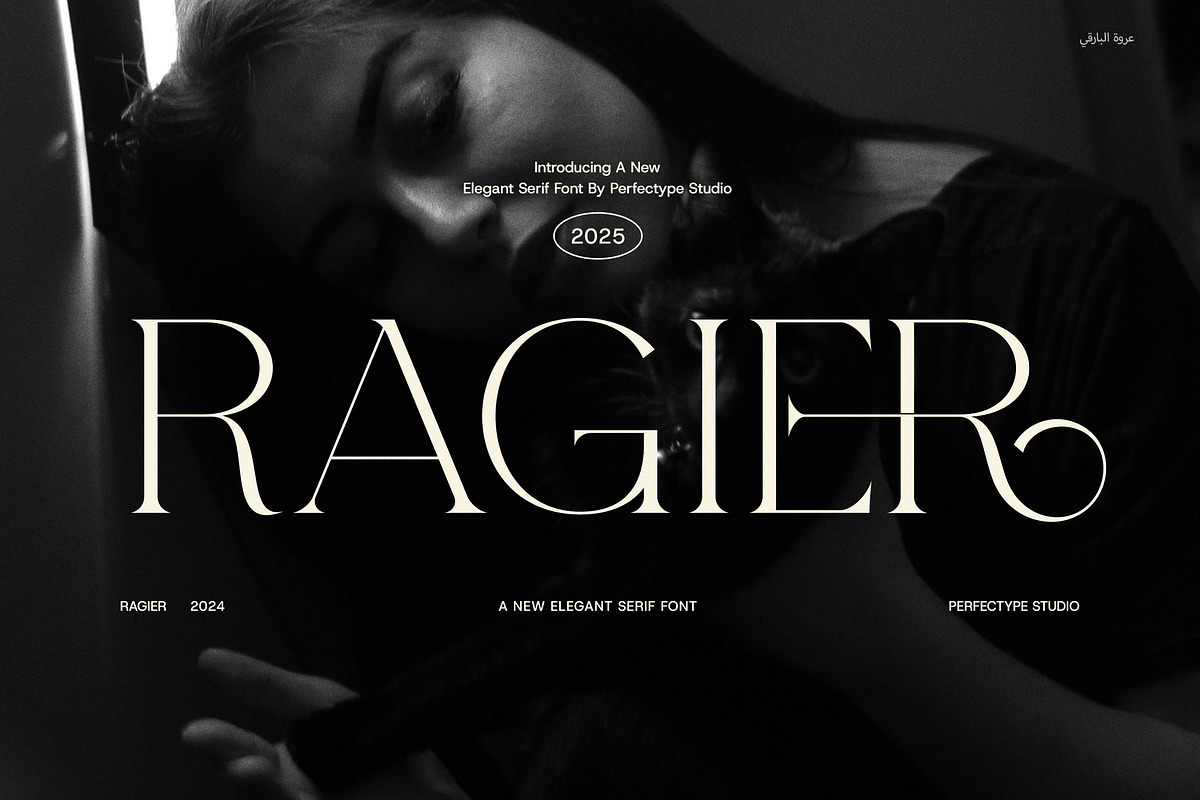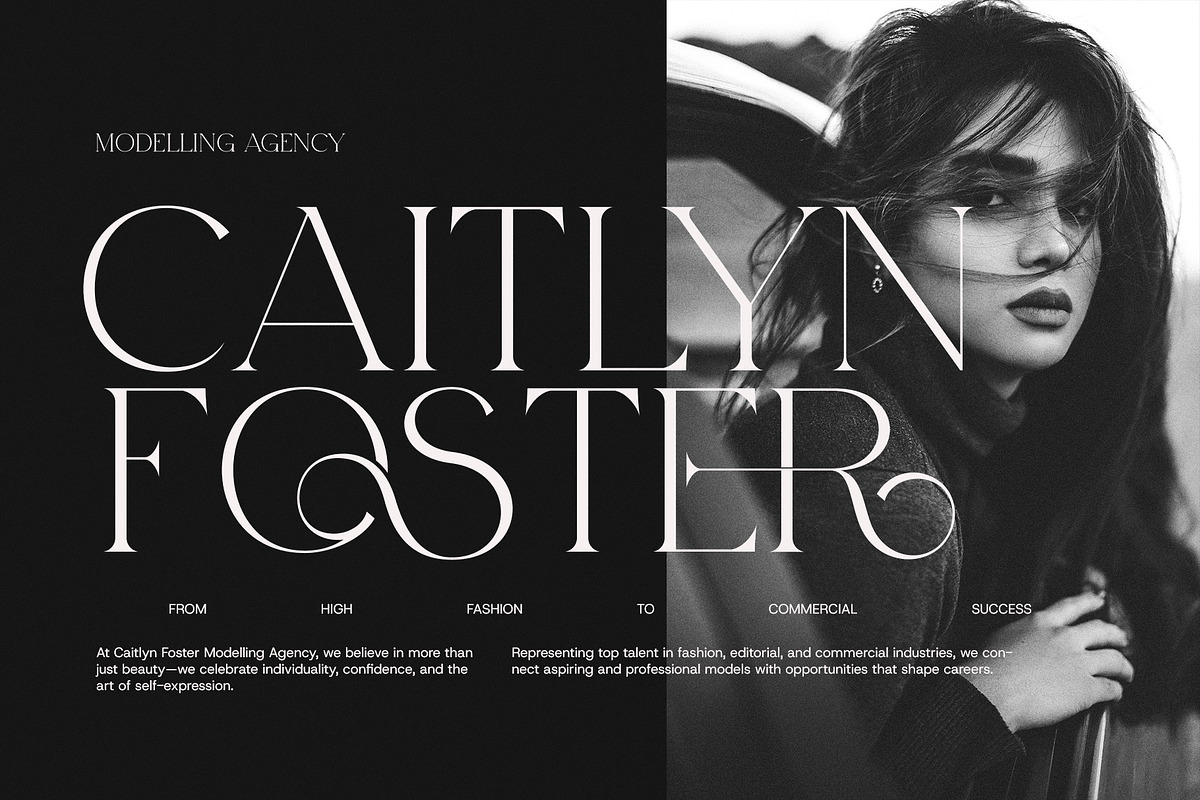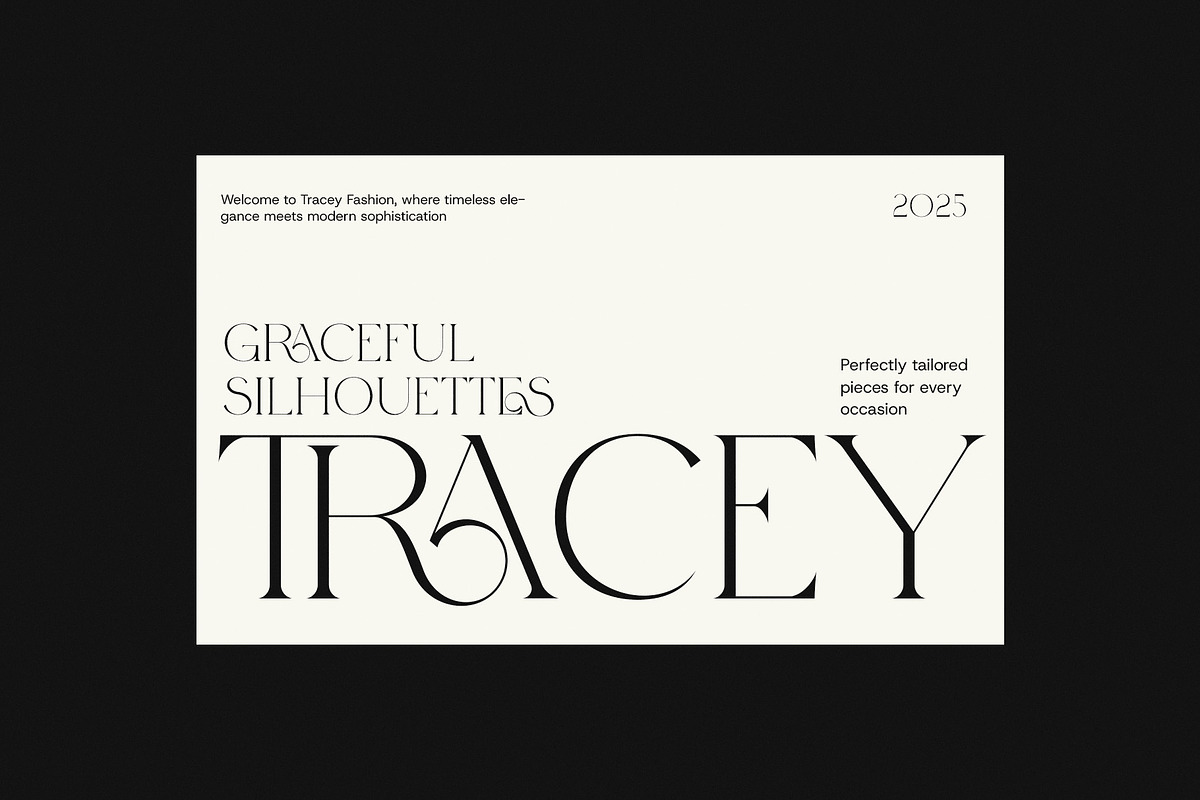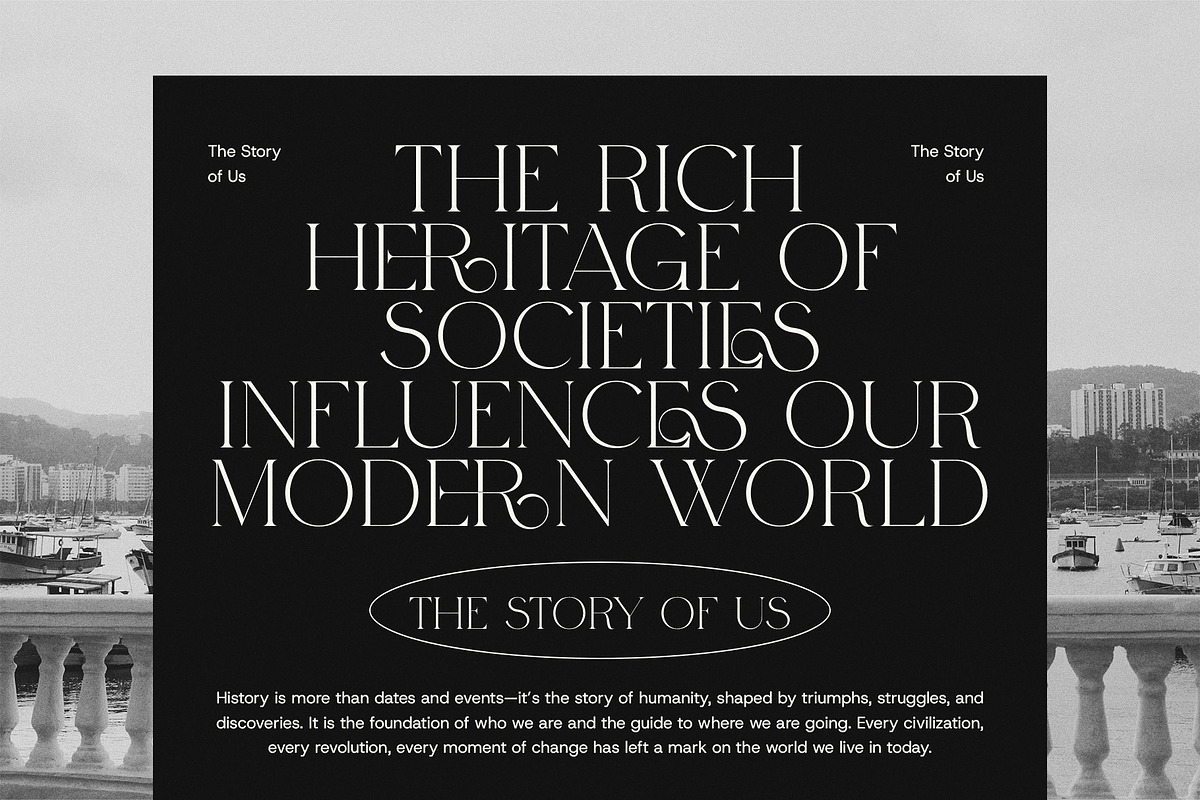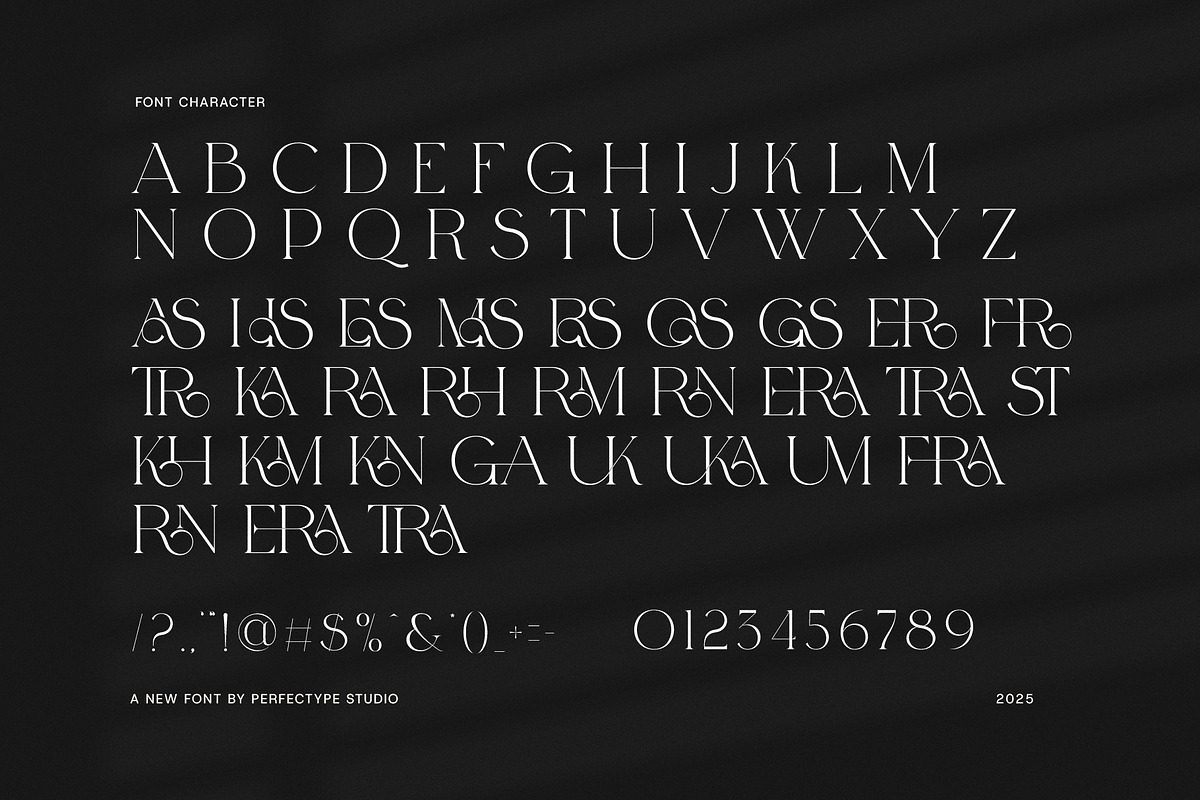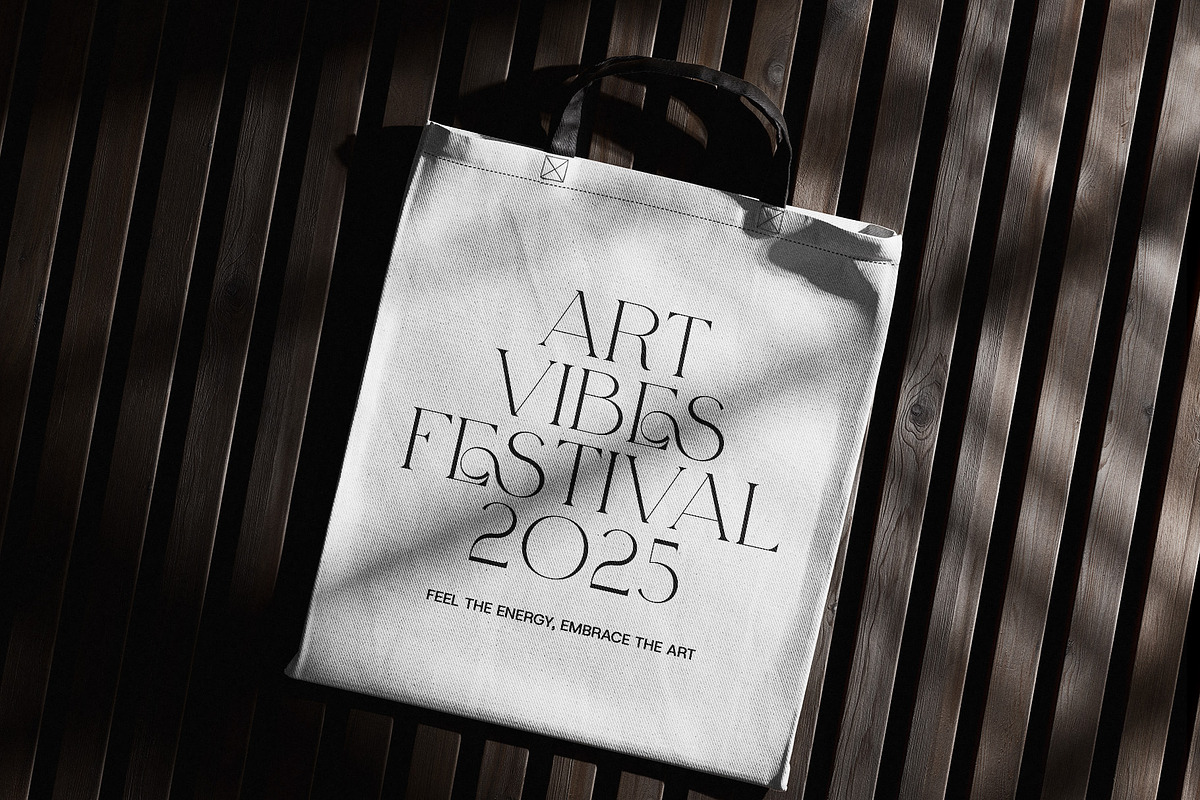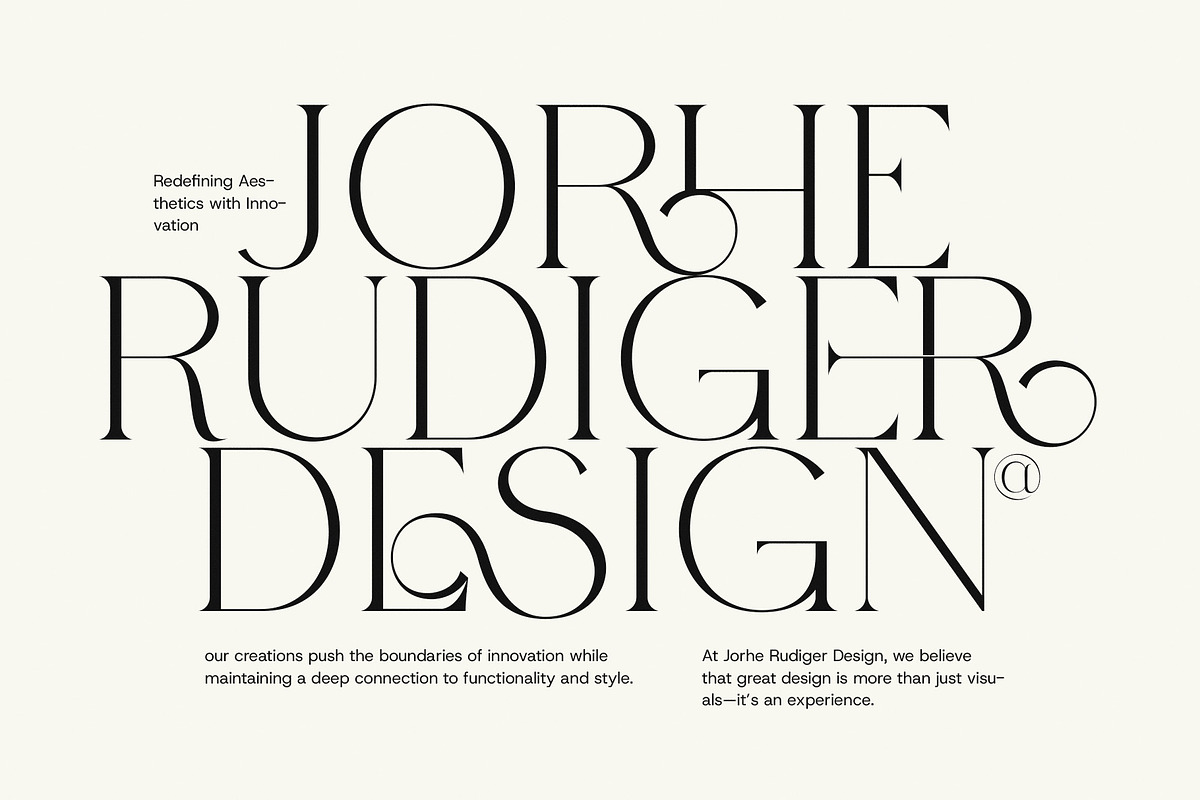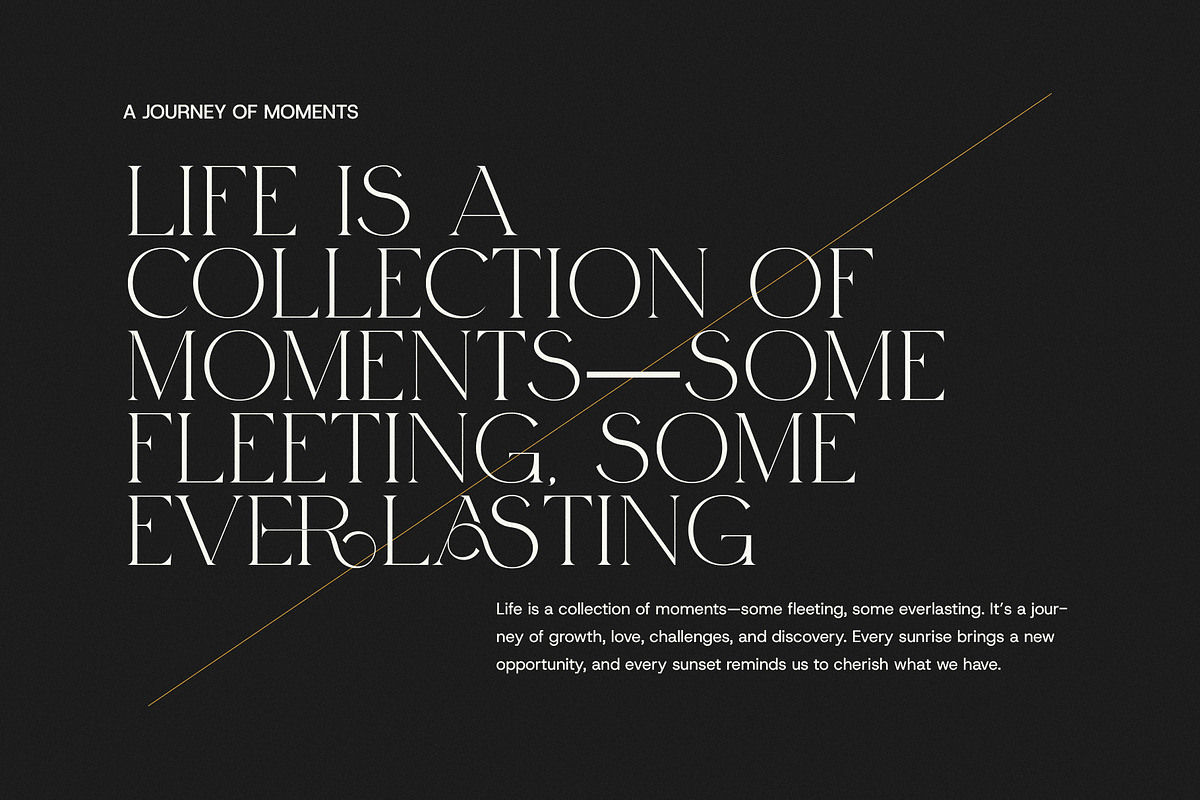
Ragier Elegant Serif Font
Introducing Ragier, an exquisite elegant serif font that blends timeless sophistication with a fresh, contemporary twist. Designed for creatives who value detail, style, and versatility, Ragier brings a high-fashion look to any design project — whether it's refined and minimal or bold and expressive.
Crafted with precision, Ragier features beautifully structured serifs, graceful curves, and striking ligatures that give your typography a unique character. Its carefully balanced contrast and stylistic alternates make it an ideal choice for designs that need a luxurious and upscale feel, without losing clarity or impact.
From logos and branding to web design, magazines, and product packaging, Ragier adapts seamlessly across both digital and print platforms. Its versatility makes it perfect for everything from boutique fashion labels, cosmetic branding, and lifestyle blogs, to restaurant menus, lookbooks, and editorial spreads. Ragier’s aesthetic speaks the language of elegance, making it especially appealing for modern branding, wedding designs, and high-end marketing materials.
Ragier stands out with its distinctive typographic personality. The included alternates and ligatures give designers the freedom to experiment and create personalized compositions — from statement headlines to refined logo marks. This flexibility allows you to craft a consistent and beautiful brand voice across all your visuals.
Whether you're designing for a chic fashion house, a luxury skincare line, or a minimalist online store, Ragier Serif Font adds just the right amount of drama and sophistication. It’s a font that commands attention, yet feels elegant and approachable — a perfect balance of modern beauty and classic typography.
Make an impression with every letter. Choose Ragier to elevate your next project with a typeface that embodies grace, style, and contemporary elegance.